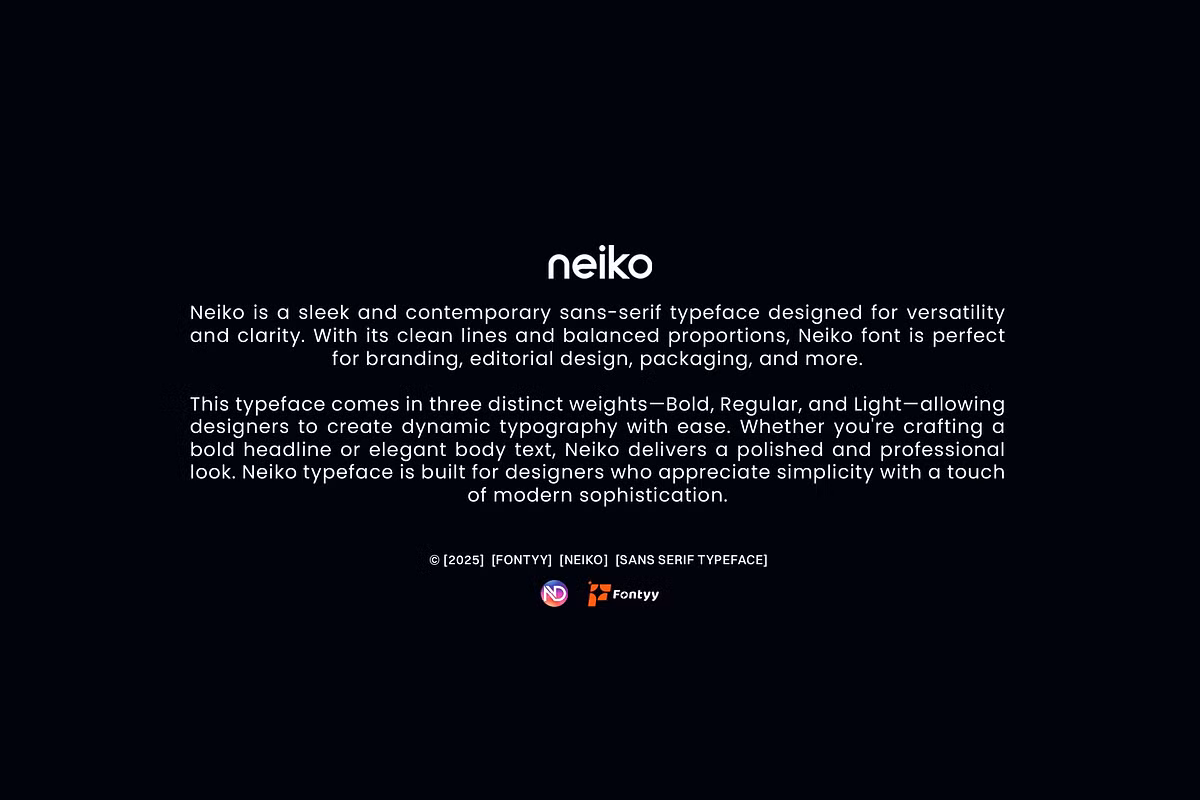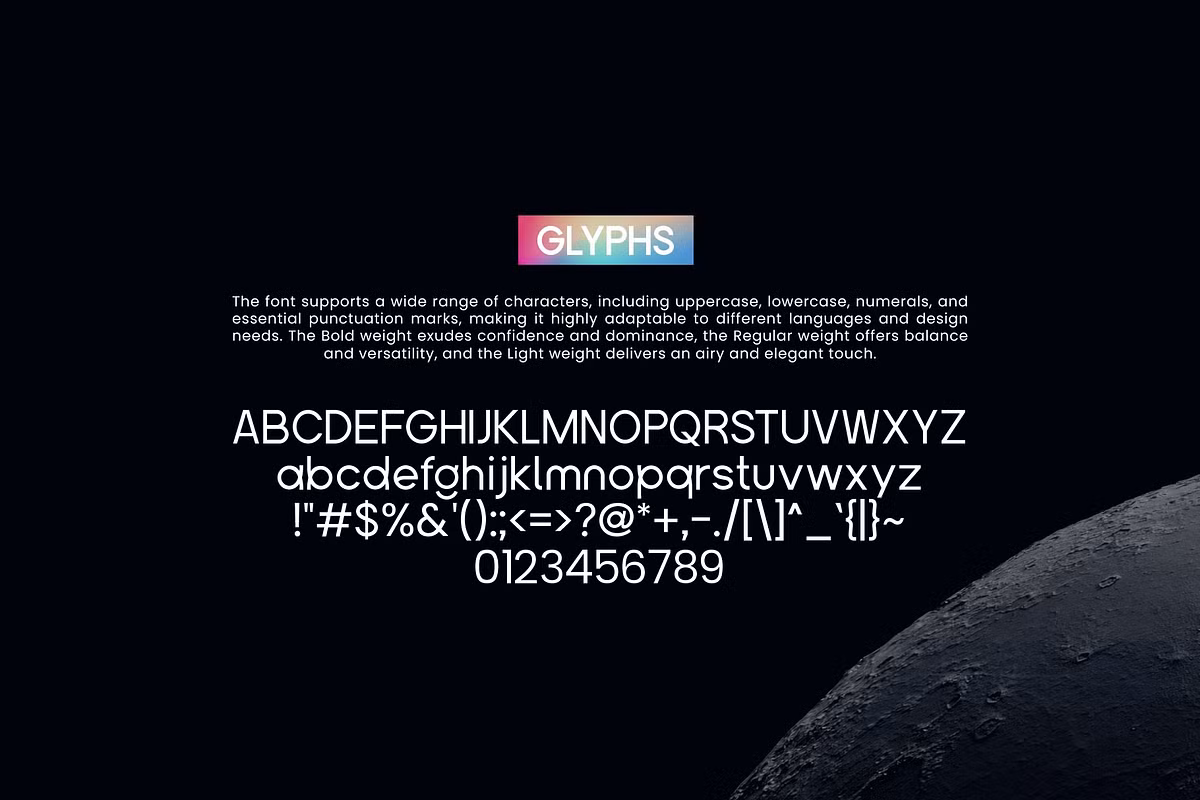
Neiko | Sans Serif Typeface
Neiko: Versatile Sans Serif Typeface for Modern Design
Neiko is a sans‑serif typeface made for flexibility and clear reading. The letters of Neiko have lines. Even shape. The design of Neiko works well for the uses, such, as the logos, the magazines, the boxes and more. Neiko comes in three weights—Bold, Regular, Light—so the designers can make the strong or the light text easily. When I need the headline or the smooth body copy Neiko gives the professional look. Neiko typeface helps the designers who like design and want a style. Neiko typeface gives a look. Neiko typeface feels easy to use for work.
Example of Neiko typeface in use
Design Style of Neiko
Neiko has a look. Neiko mixes elegant style. The letters, in Neiko have lines and geometric shapes. Those shapes give Neiko a feel. I find Neiko works well for design projects. The proportions in Neiko are balanced. The balance makes each character easy to read at any size. I notice readability helps when clarity matters. Neiko is useful, for signs and digital screens.
Neiko has a sans‑serif style. That style gives Neiko a quality that lets Neiko fit easily into design contexts. I have seen Neiko work well in branding and, in creative projects. In both cases Neiko looks professional. Makes the message clear.
Visual representation of Neiko font style
Character Sets and Features
Neiko includes a set of characters. The set has letters, lowercase letters, numbers and many punctuation marks. When I use Neiko I see that the wide range lets me work in languages and many contexts. The range makes Neiko flexible. Neiko also offers a number of ligatures and stylistic alternates. The typeface gives me options when I design pieces.
I like the three weights—Bold, Regular, Light—because the three weights make the typeface work better. The Bold weight works for headings or promotional material. The Bold weight makes a statement. The Regular weight works well for body text, in articles and reports. The Light weight offers an option. The Light weight fits invitations or minimalist designs. When I need a hierarchy in a design I use the Bold weight for the headline the Regular weight for the copy and the Light weight for subtle details and the whole thing feels balanced. This range gives a hierarchy, for any project.
Neiko typeface in different weights
Use Cases for Neiko
Neikos versatility makes Neiko a good choice, for the design applications. Here are some common use cases:
• Branding: Neiko looks modern and professional. I have seen Neiko work well for the logos the identities and the branding materials. Brands that want to show clarity and sophistication will find Neiko a fitting choice.
• Editorial Design: In magazines, newsletters and online publications Neiko’s readability keeps the body text engaging and easy to read. I notice that Neiko’s weights make a distinction, between headings and body text.
• Packaging: Neiko helps create an nice look, for the product packaging. Neikos clarity makes the product information easy to read which improves the customer experience.
• Web Design: I find that Neikos adaptability, in environments makes Neiko a great option for websites and apps. Neikos clarity, on screens keeps the user interfaces intuitive.
Pairing Suggestions for Neiko
When I think about the typography pairing the fonts can make an impact. I notice that Neiko works well with typefaces. Here are some recommendations:
• Serif Fonts: Pair Neiko, with a serif typeface such as Merriweather or Playfair Display to create a contrast. The modern sans-serif and the classic serif together give a look, to any design.
• Display Fonts: I use Neiko with a display typeface such, as Bebas Neue when I work on projects. Neiko and Bebas Neue together give headlines that catch the eye and keep the body text easy to read.
• Handwritten or Script Fonts: I like to pair Neiko with a font such, as Pacifico. Neiko and Pacifico add an friendly feel, to the branding and the invitations. The result feels more inviting.
I have used Neiko on projects. Neiko is a typeface that can be used in ways. Neiko stands out for a look and practical use. Neiko has lines and good balance. Neiko fits uses from the brand work, to the magazine design. Neiko has three weights. Neiko lets the designers try lettering. Neiko helps the project get an professional look. Whether the designer is experienced or just starting Neiko is an addition, to the type toolbox. Neiko offers modern style. I recommend Neiko for any design work.